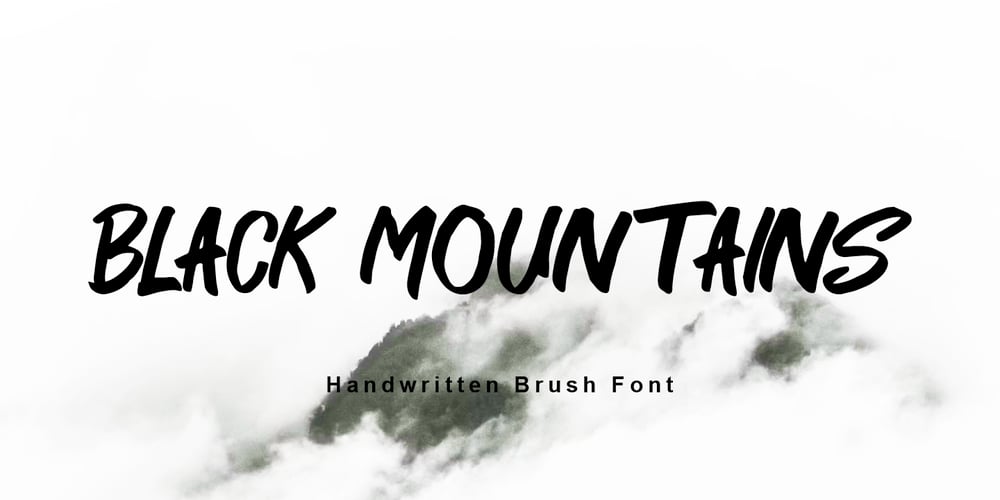
Black Mountains Font Family was designed by Rizal Aiyub and published by Fontysia. Black Mountains contains 2 styles and family package options. Black Mountains font Brush is a font that has a rough, strong, bold, natural, brushed and stroked style. typeface is ready to use and suitable rush design like for Modern design, branding, cover book, poster, flyer etc.